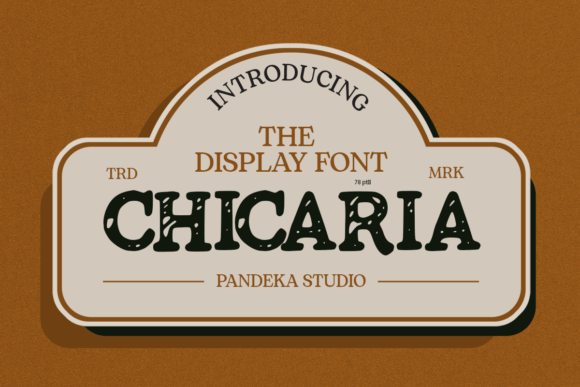
Introducing Chicaria Font: The Perfect Blend of Vintage Charm and Modern Elegance
In the world of typography, few fonts manage to capture the essence of both vintage charm and modern sophistication as effectively as Chicaria. This bold vintage display font has been turning heads with its unique blend of classic typography, retro aesthetics, and timeless elegance. Whether you’re working on a packaging design, poster, or branding project, Chicaria is the perfect choice for those looking to add a touch of nostalgia and modern flair to their work.
The Unique Characteristics of Chicaria Font
So, what sets Chicaria apart from other fonts? For starters, its rough stamp effect gives it a distinctive, hand-crafted feel that’s perfect for vintage-inspired designs. At the same time, its elegant style ensures that it remains sophisticated and refined, making it suitable for a wide range of applications. The combination of these two characteristics – rough and elegant – makes Chicaria a standout choice for designers looking to create bold, eye-catching lettering.
Another key feature of Chicaria is its boldness. This font is designed to make a statement, with thick lines and a confident presence that’s impossible to ignore. Whether you’re using it for a title, a headline, or a logo, Chicaria is sure to grab attention and leave a lasting impression.
The Benefits of Using Chicaria in Your Designs
There are many benefits to using Chicaria in your designs. For one, its vintage-inspired aesthetic can add a unique and playful touch to your work. This is especially true for projects that require a retro or nostalgic feel, such as packaging designs for vintage-style products or posters for classic movies.
Chicaria is also an incredibly versatile font. Its bold, elegant style makes it suitable for a wide range of applications, from branding and packaging to posters and signage. Whether you’re working on a large-scale project or a small, personal design, Chicaria is a great choice.
In addition to its aesthetic appeal and versatility, Chicaria is also an excellent choice for designers who want to create bold, eye-catching lettering. Its thick lines and confident presence make it perfect for headlines, titles, and other applications where you want to grab attention.
When using Chicaria, it’s essential to consider the context in which you’ll be using the font. For example, if you’re creating a packaging design for a product, you may want to use Chicaria for the product name or logo. If you’re creating a poster, you could use Chicaria for the headline or title.
It’s also worth experimenting with different colors and textures to enhance the vintage aesthetic of Chicaria. For example, you could pair the font with a distressed or vintage-style background to create a cohesive look.
The Inspiration Behind Chicaria
The inspiration behind Chicaria is rooted in the classic typography of the past. The font’s designers drew inspiration from vintage fonts, posters, and signage, seeking to create a modern font that captured the essence of these classic designs.
At the same time, the designers of Chicaria also wanted to create a font that was distinctly modern. They achieved this by incorporating a range of contemporary design elements, including a bold, confident presence and a rough stamp effect.
The result is a font that feels both nostalgic and modern, vintage and cutting-edge. Whether you’re a designer looking for a unique font to add to your collection or a business owner seeking to create a bold, eye-catching brand identity, Chicaria is an excellent choice.
Chicaria – A Font for the Ages
Chicaria is more than just a font – it’s a design statement. With its bold, elegant style and vintage-inspired aesthetic, this font is sure to turn heads and leave a lasting impression.
Whether you’re working on a large-scale design project or a small, personal design, Chicaria is the perfect choice. Its versatility, aesthetic appeal, and bold presence make it suitable for a wide range of applications, from branding and packaging to posters and signage.
In short, Chicaria is a font for the ages. Its unique blend of vintage charm and modern sophistication makes it a timeless choice that will remain popular for years to come.
In conclusion, Chicaria is a bold vintage display font that combines classic typography with retro aesthetics and timeless elegance. Perfect for vintage-inspired designs, Chicaria adds a unique and playful touch to bold lettering, packaging, posters, and branding. Its rough stamp effect and elegant style make it a standout choice for projects that demand a mix of nostalgia and modern flair.
- Retro Aesthetic: The font’s vintage-inspired design makes it perfect for projects that require a nostalgic or retro feel.
- Rough Stamp Effect: Chicaria’s rough stamp effect gives it a distinctive, hand-crafted feel that’s perfect for adding a touch of personality to your designs.
- Elegant Style: Despite its bold presence, Chicaria has an elegant style that ensures it remains sophisticated and refined.
- Versatile: Chicaria is suitable for a wide range of applications, from branding and packaging to posters and signage.